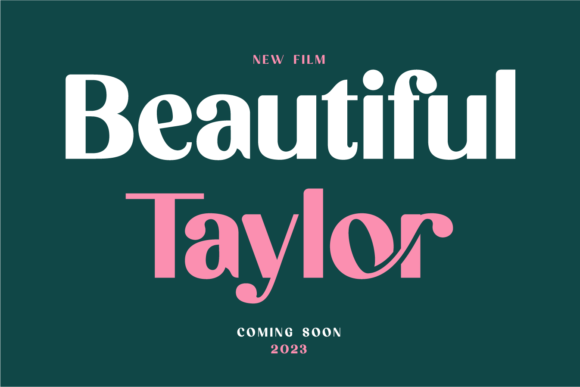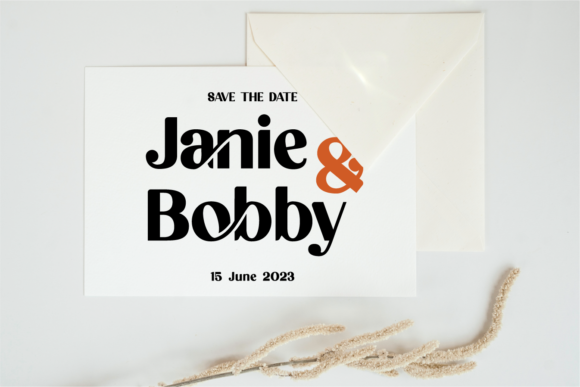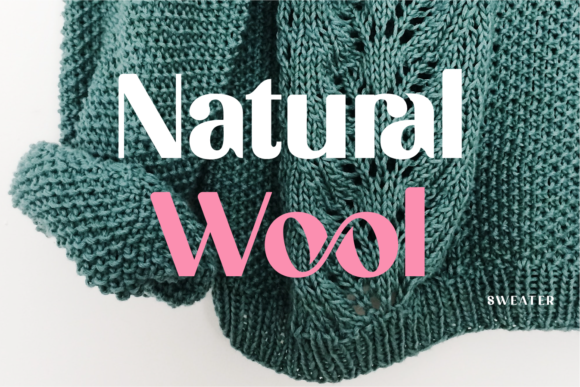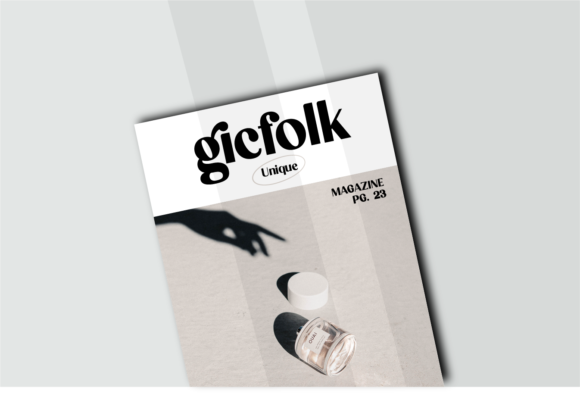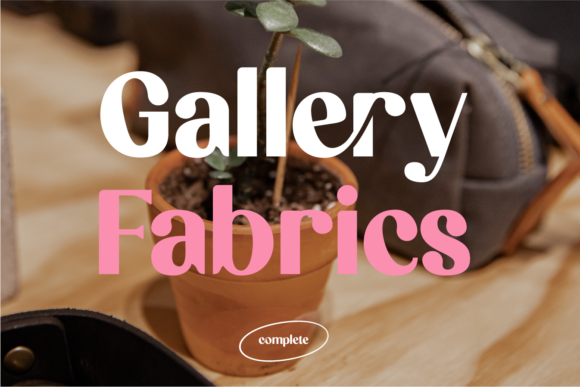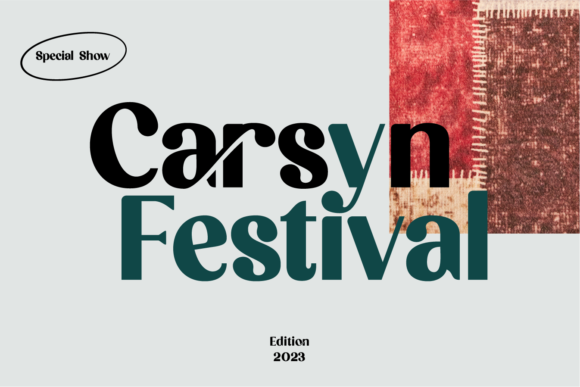
Introduction to Mel Pooly Font
Mel Pooly is a cool, modern and trendy display font.
This font is ideal for writing web designs, business cards, or pretty much anything else that requires a stylish and bold touch .